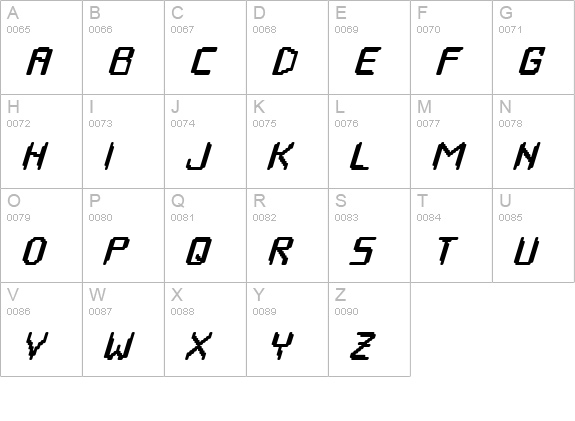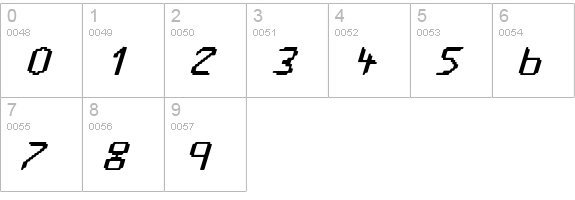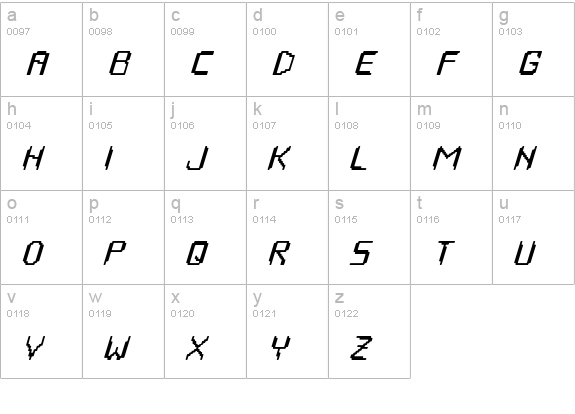
HOUSEPIPES Italic is a distinctive, italic variant in the HOUSEPIPES typeface family \xE2\x80\x94 well suited to design and typography projects.
Introducing HOUSEPIPES, a versatile and modern italic font that is perfect for adding a touch of elegance to your designs. With its sleek and stylish curves, HOUSEPIPES is sure to make your text stand out. Whether you're creating a logo, poster, or website, this font is a great choice for adding a sophisticated touch. The best part? HOUSEPIPES is available for free download at FontsMarket.com. So why wait? Add this stunning italic font to your collection today and take your designs to the next level.